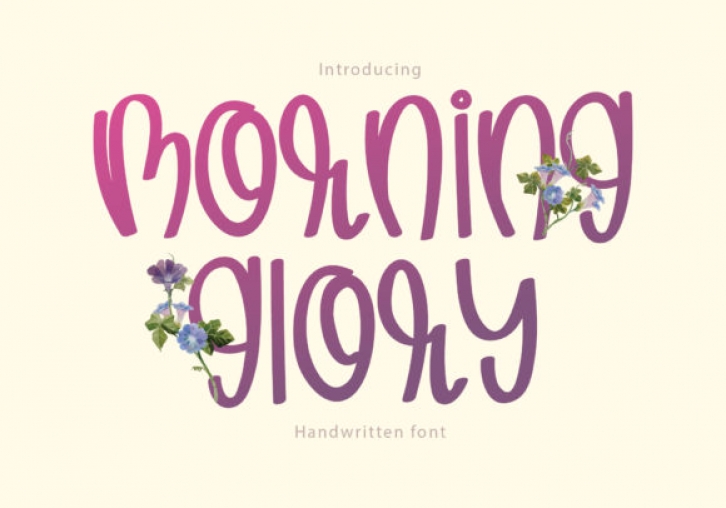
Morning Glory is a great handwritten font. Clean and a little bit quirky, this font is the perfect fit for all of your logos, branding, social media, and crafty DIY projects.